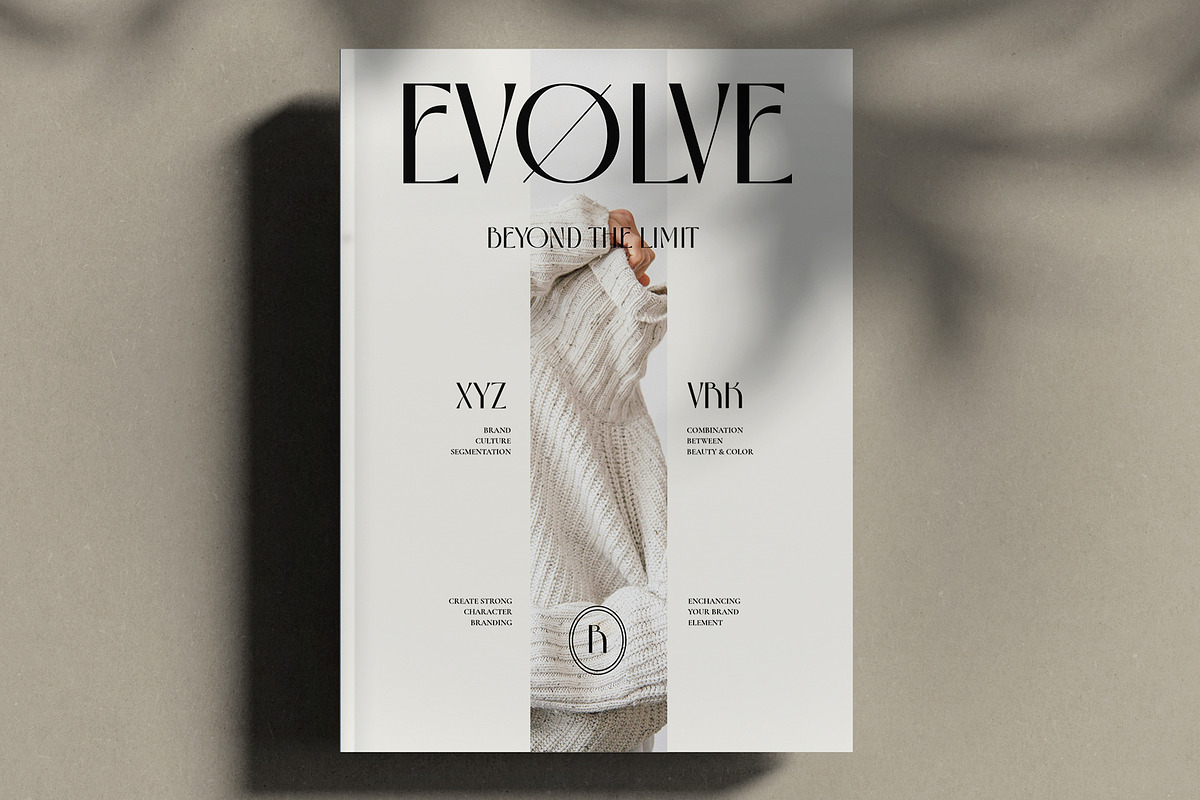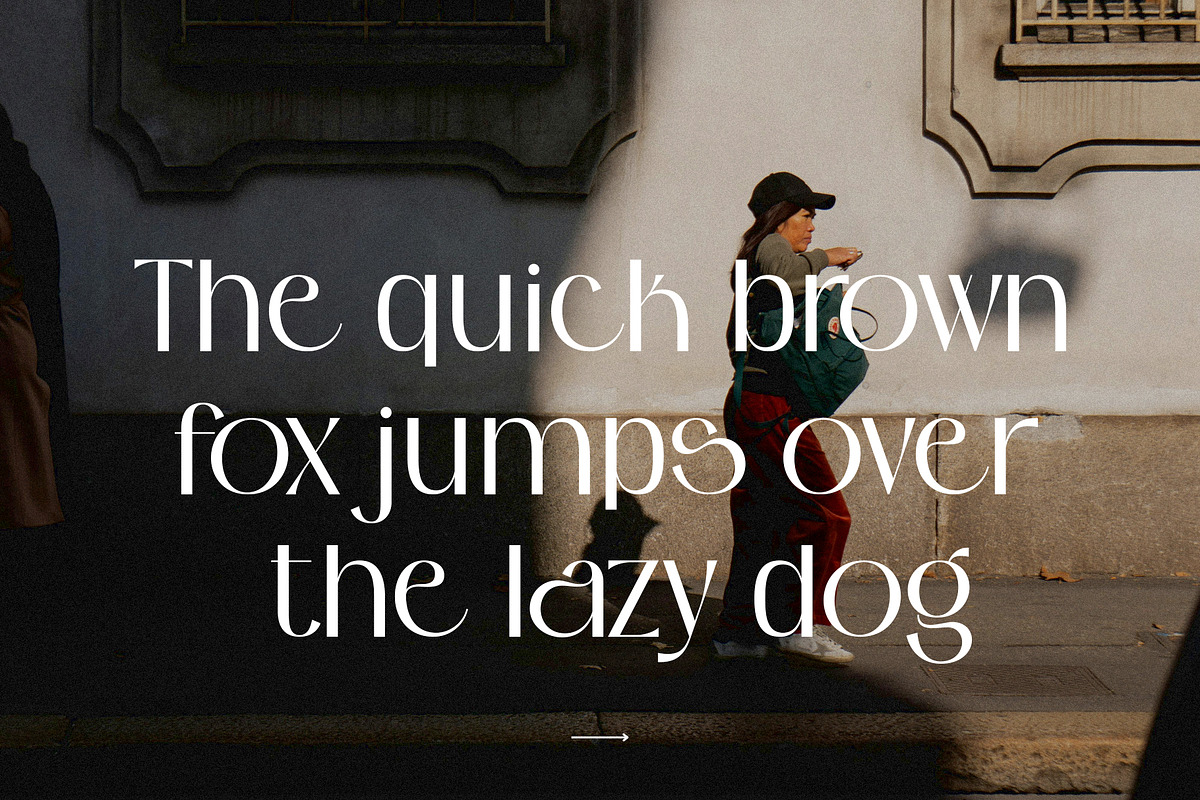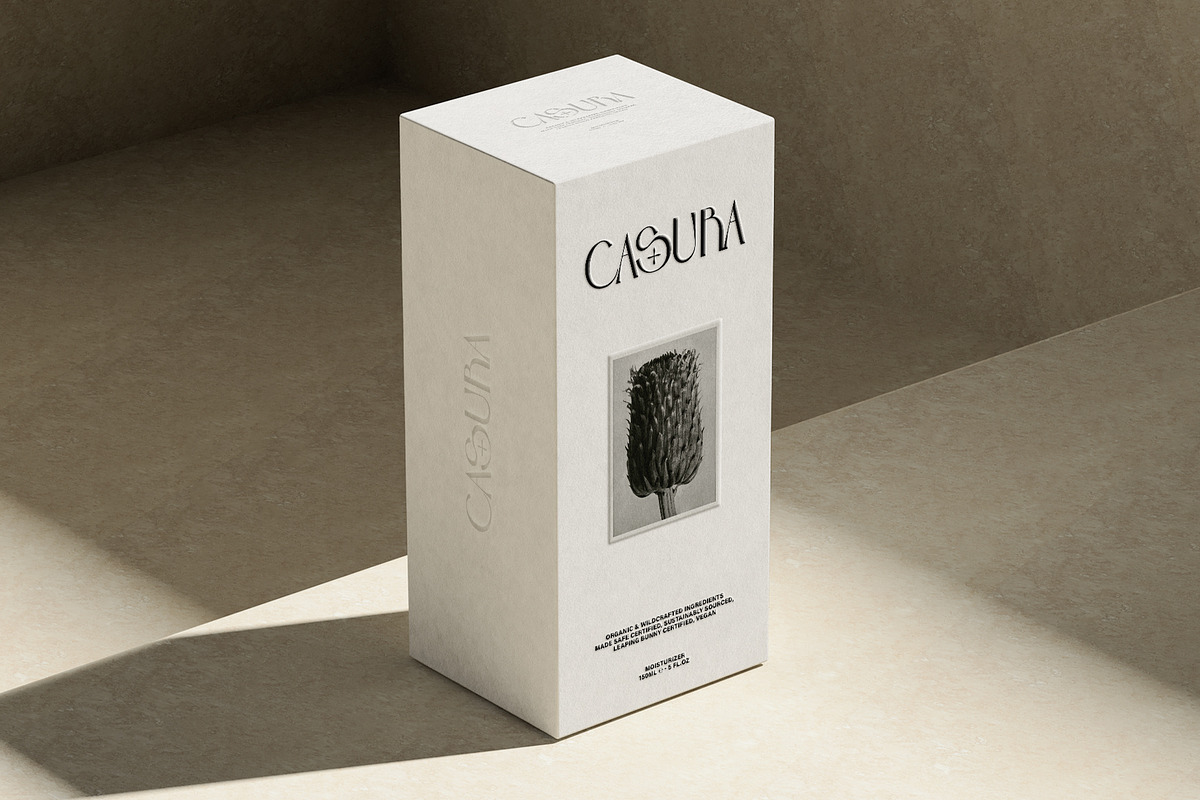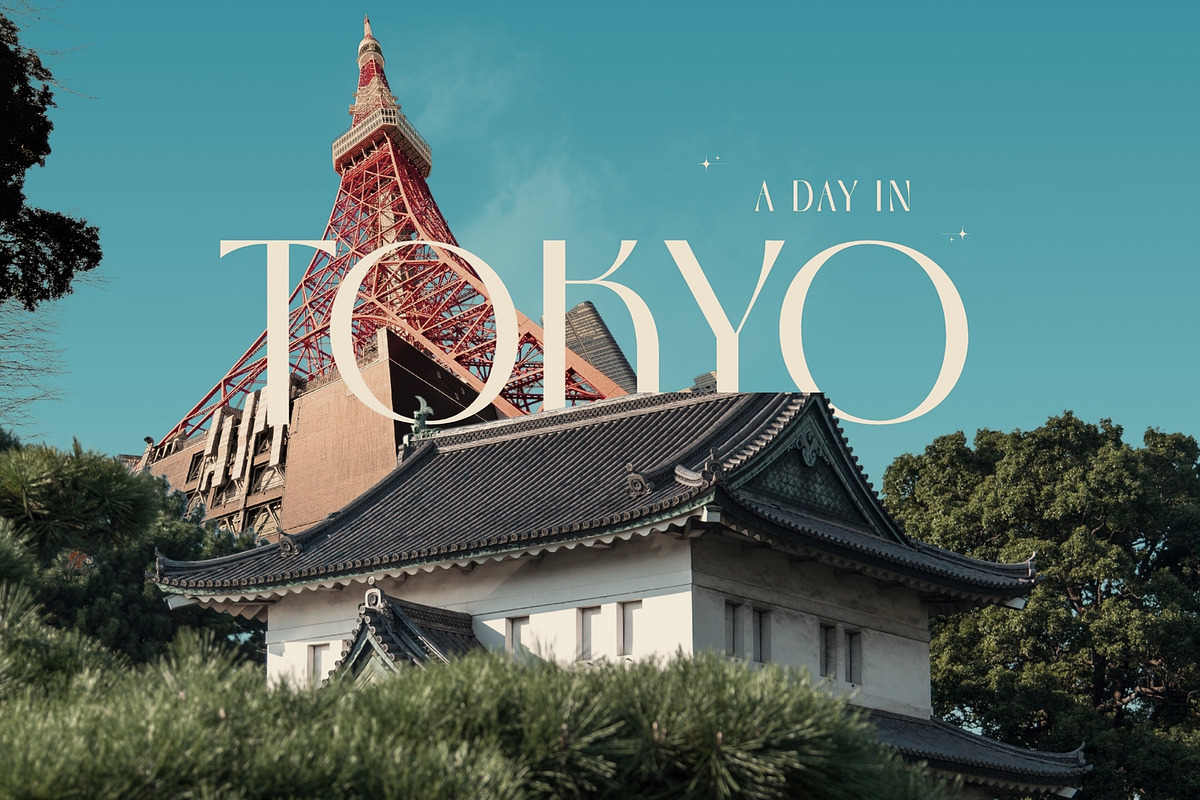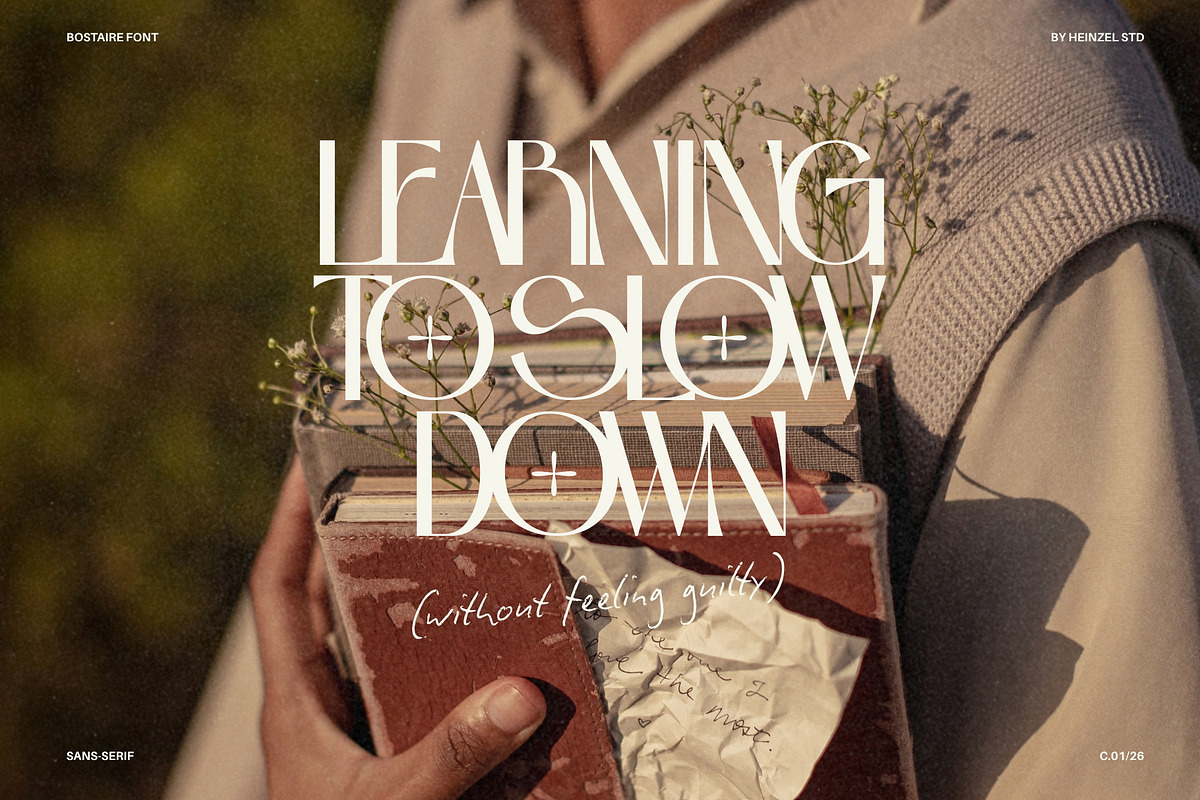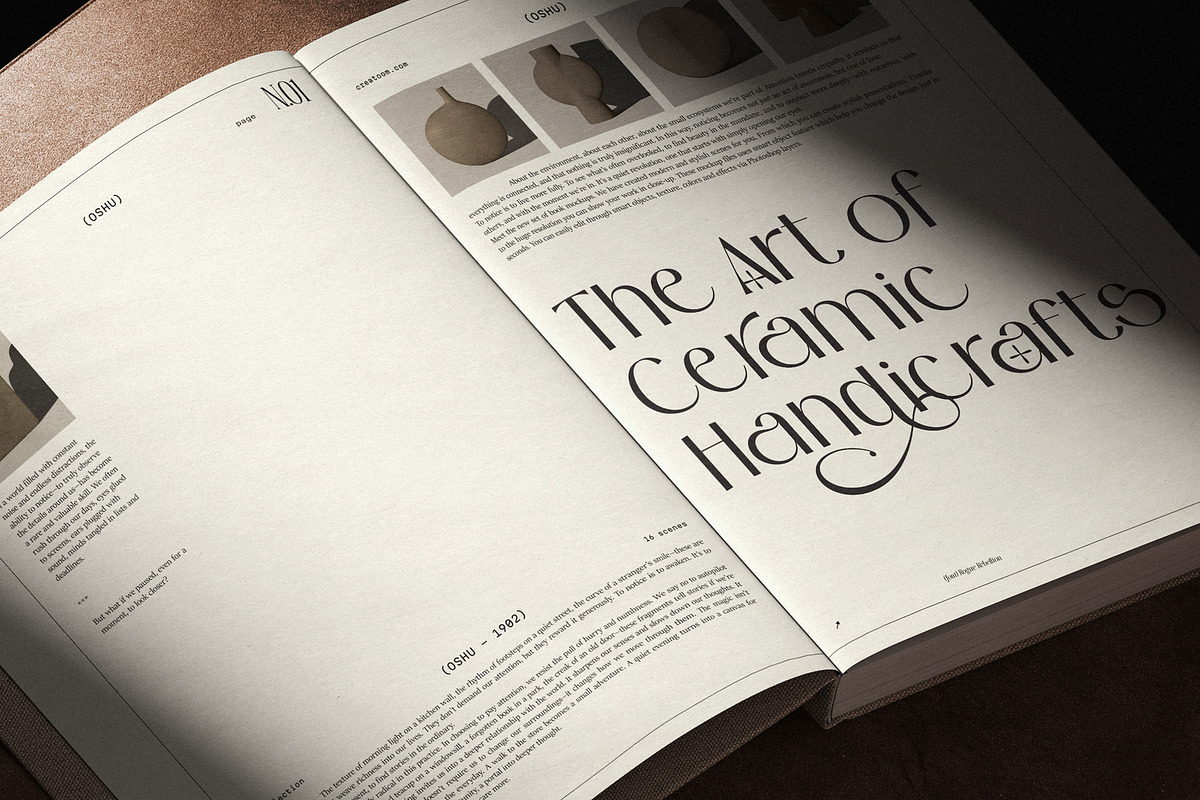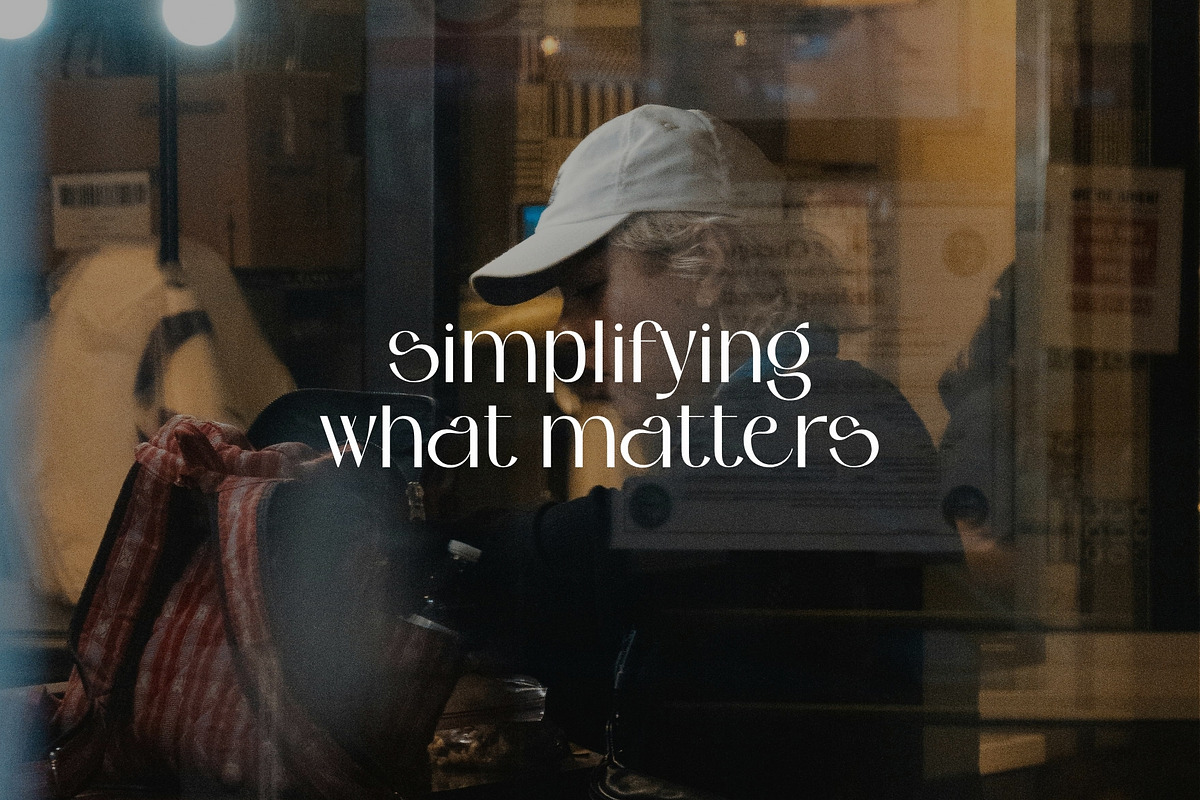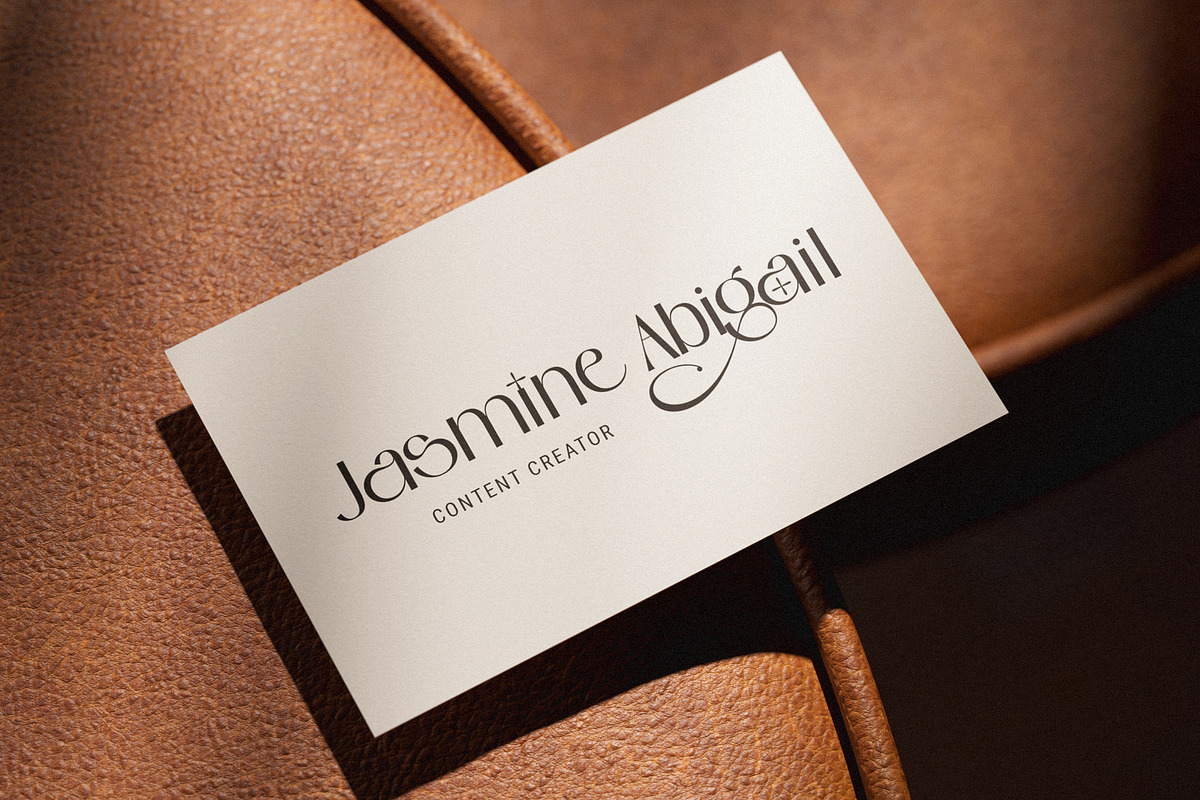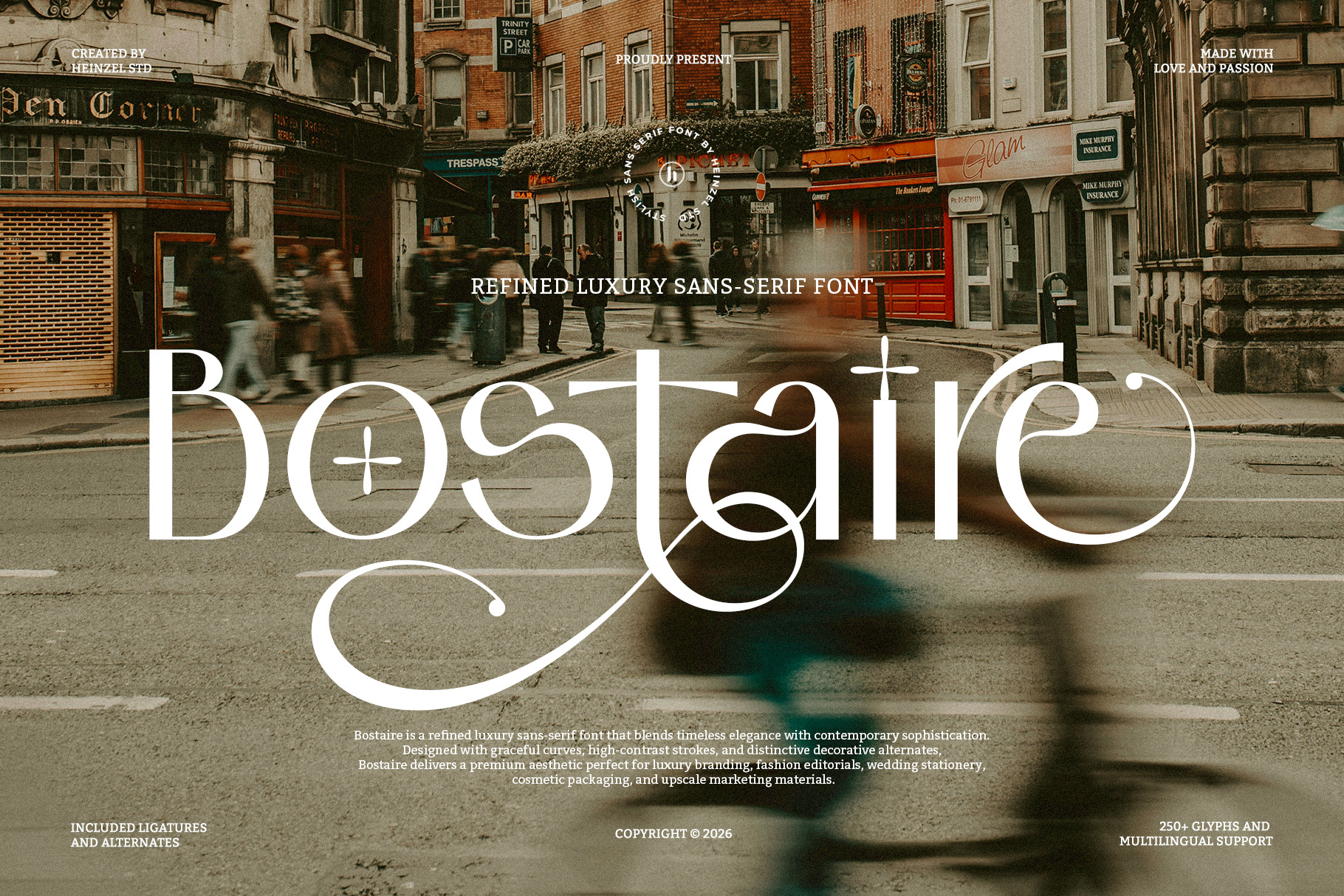
Bostaire Luxury Sans Serif Font
Bostaire is a refined luxury sans-serif font that blends timeless elegance with contemporary sophistication. Featuring graceful curves, high-contrast strokes, and distinctive decorative alternates, Bostaire brings a premium aesthetic to every design project. Its unique character shapes create a memorable visual identity while maintaining exceptional readability and versatility.
Designed for luxury branding, fashion editorials, wedding stationery, cosmetic packaging, logo design, and upscale marketing materials, Bostaire offers a perfect balance between modern minimalism and classic beauty. The font includes stylish ligatures, elegant alternates, multilingual support, and carefully crafted glyphs, making it an ideal choice for designers seeking a sophisticated and exclusive typographic voice.
Whether used for high-end logos, magazine headlines, social media campaigns, or premium product packaging, Bostaire delivers a polished and luxurious appearance that elevates any creative work.